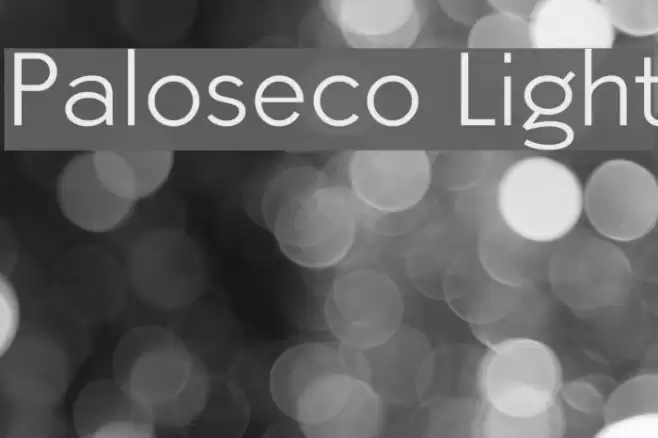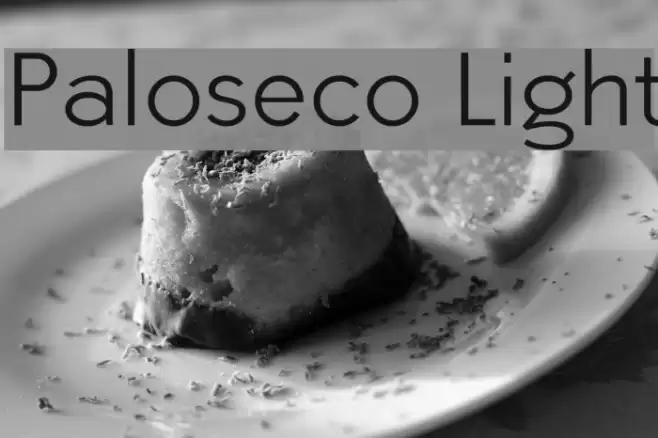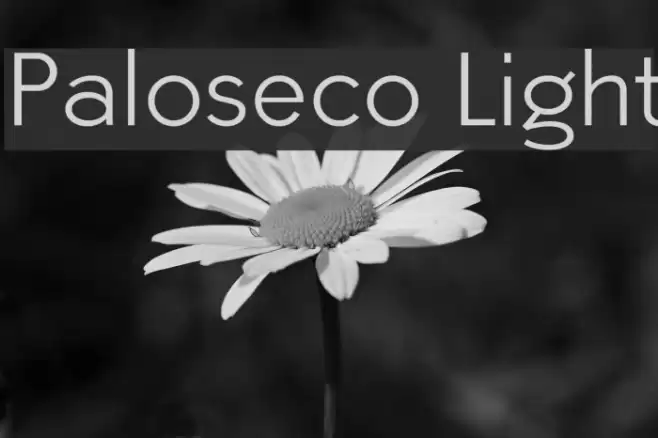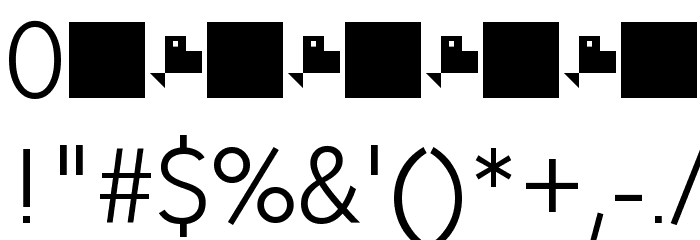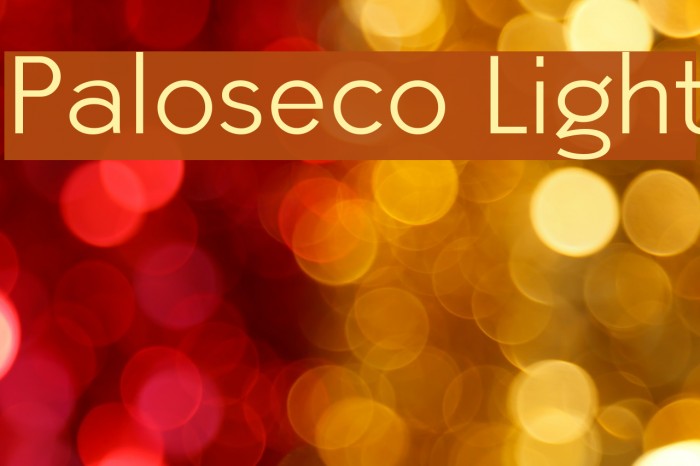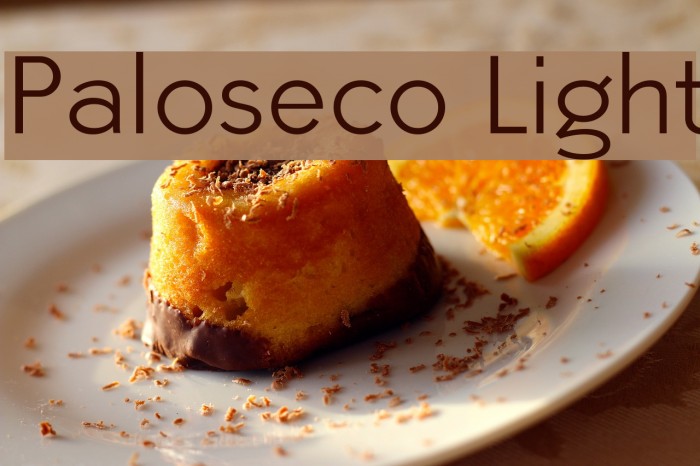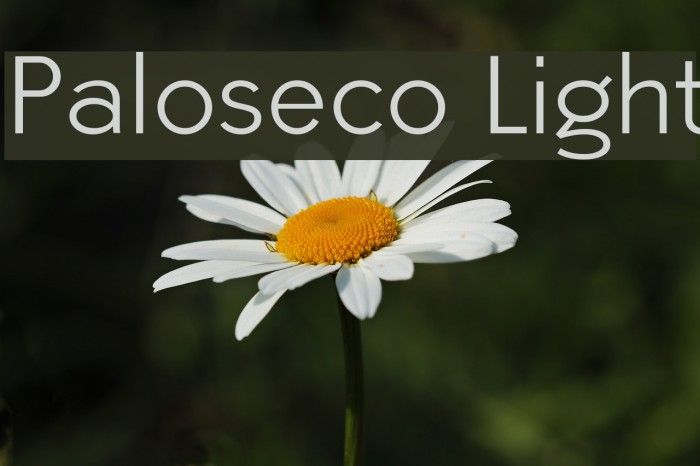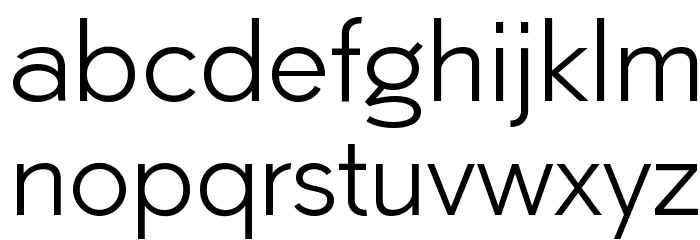
Paloseco Light
This font presents a clean and modern aesthetic with a sans-serif style. It features uniform stroke widths, contributing to a minimalist and contemporary look. The characters are well-proportioned with a geometric influence, evident in the circular shapes of the 'o' and the symmetrical structure of letters like 'A' and 'V'. The lowercase letters maintain a consistent height, providing a harmonious appearance. The font includes a full set of uppercase and lowercase letters, numerals, and a variety of special characters, making it versatile for different design needs. Its simplicity and clarity make it suitable for both digital and print media.
A modern, sans-serif font with clean lines and geometric shapes.
- Proposed Projects: Ideal for branding, web design, advertising, and editorial layouts.
- Weight: Light